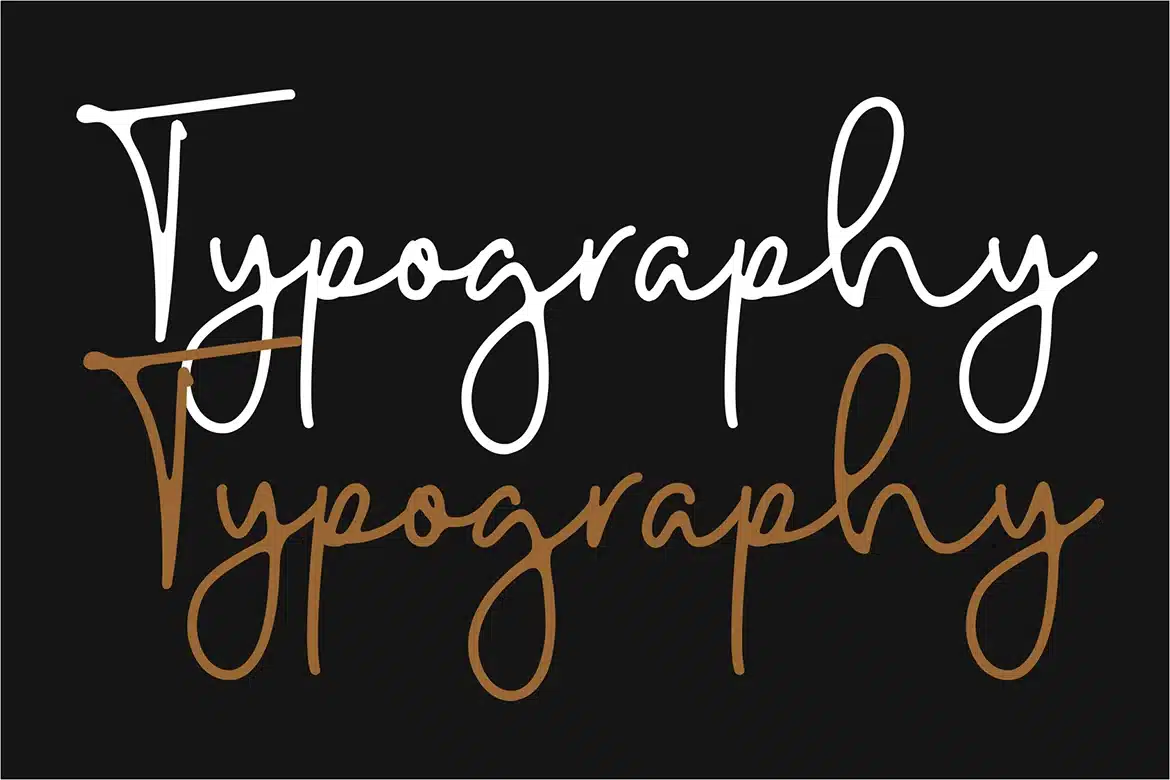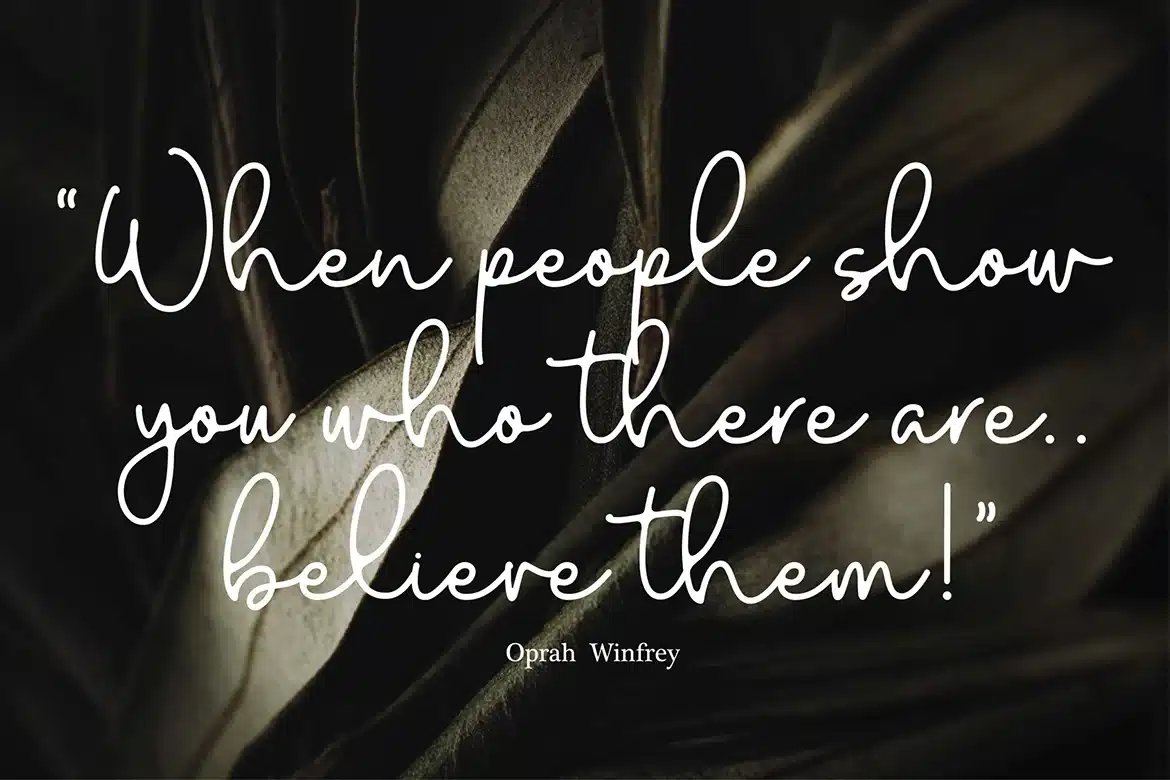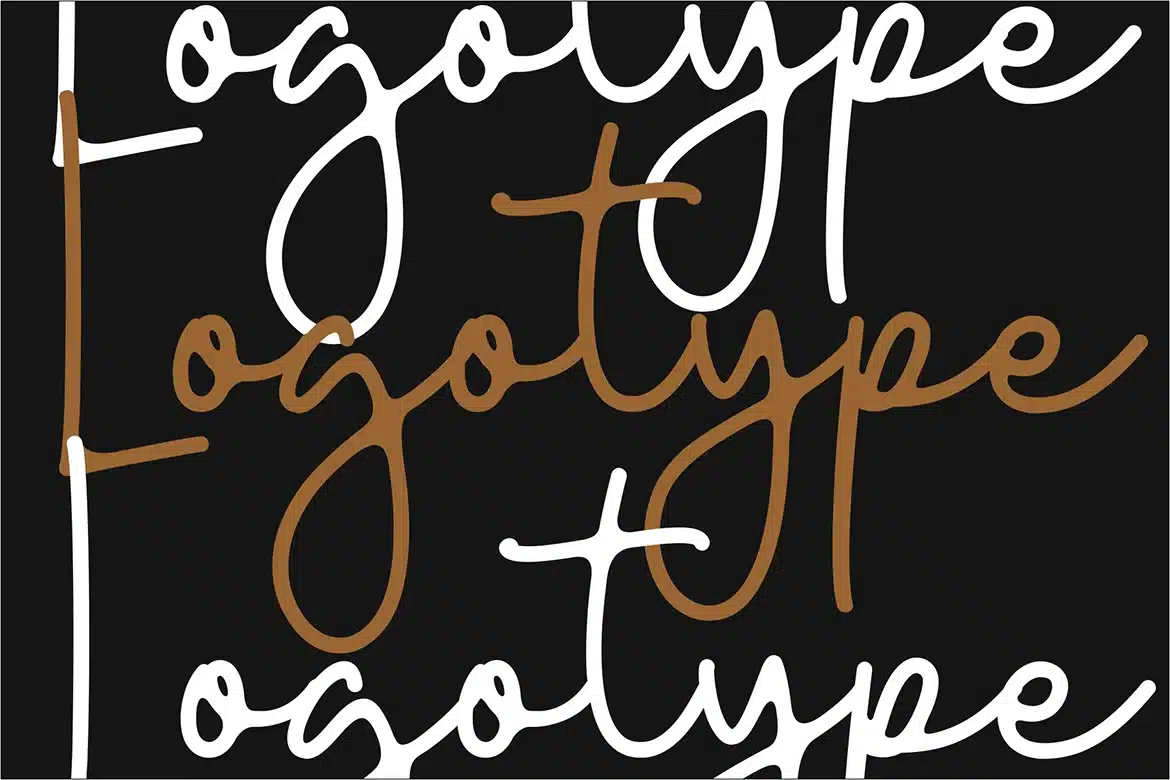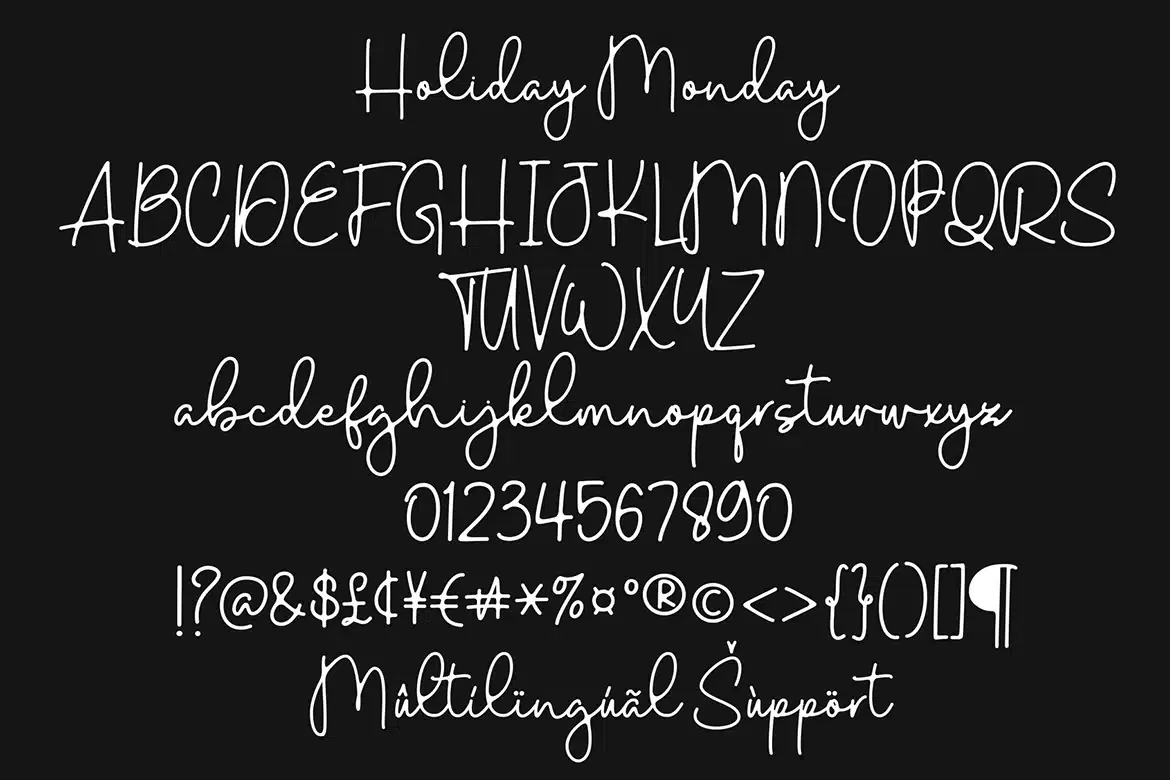
Holiday Monday Font
Holiday Monday is a Elegant Monoline script font, perfect for crafting, branding, invitation, stationery, wedding designs, social media posts, advertisements, product packaging, product designs, label, Posters, photography, special events, or anything.
Font Features :
- numeric & Multilingual support